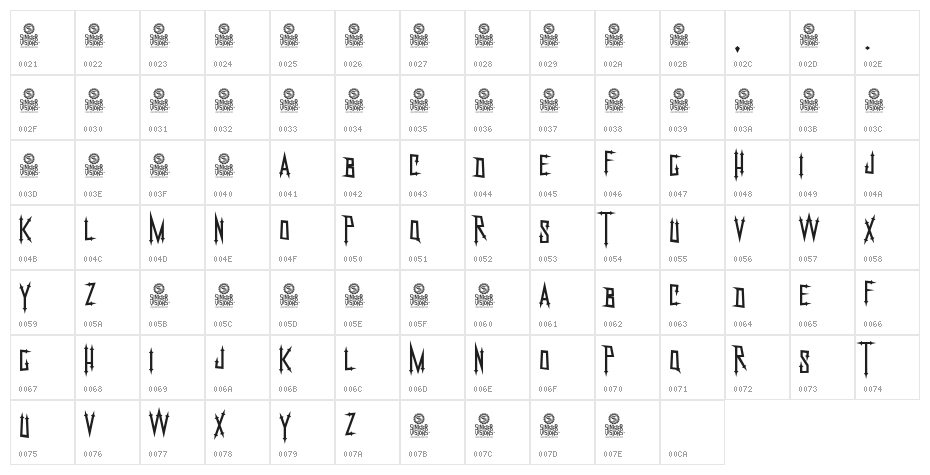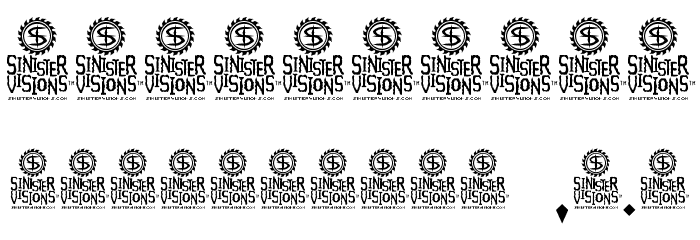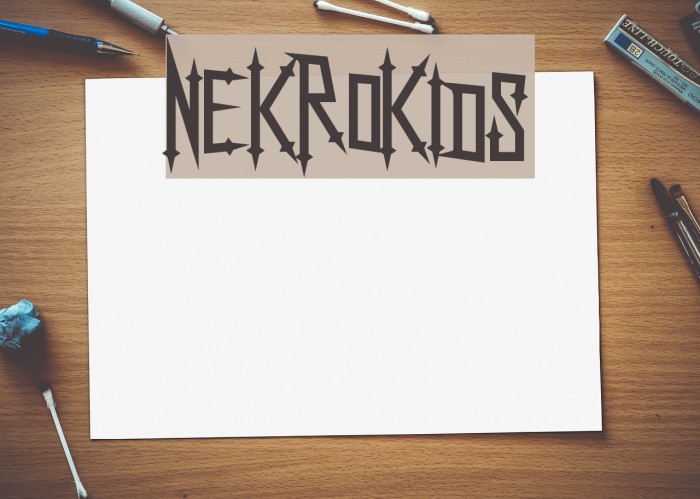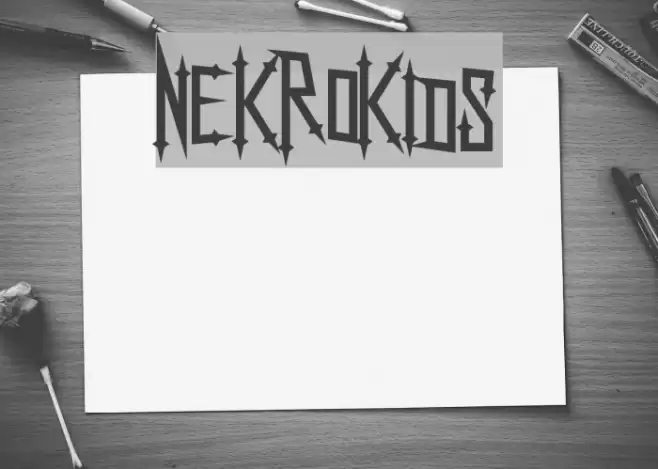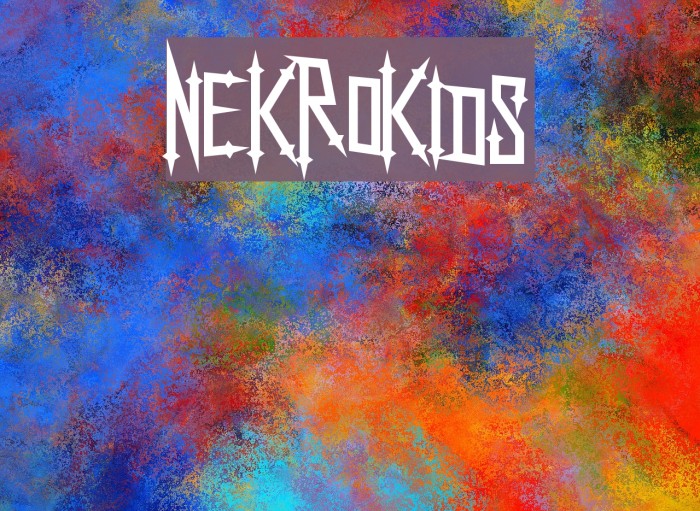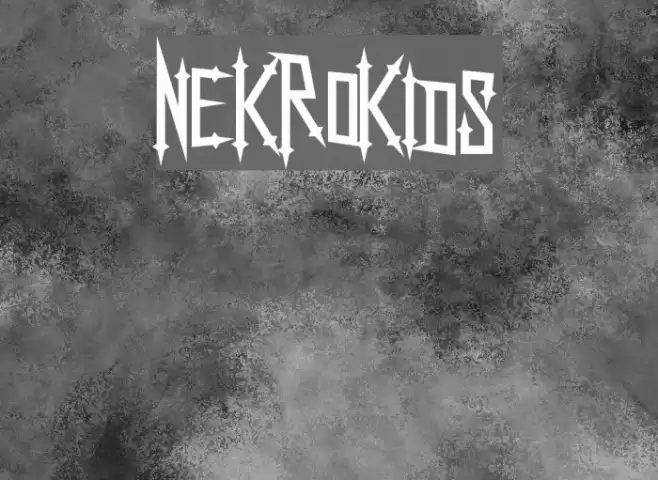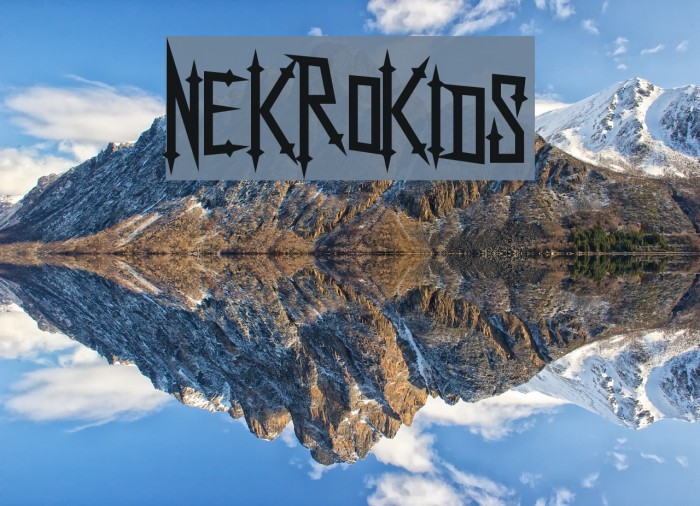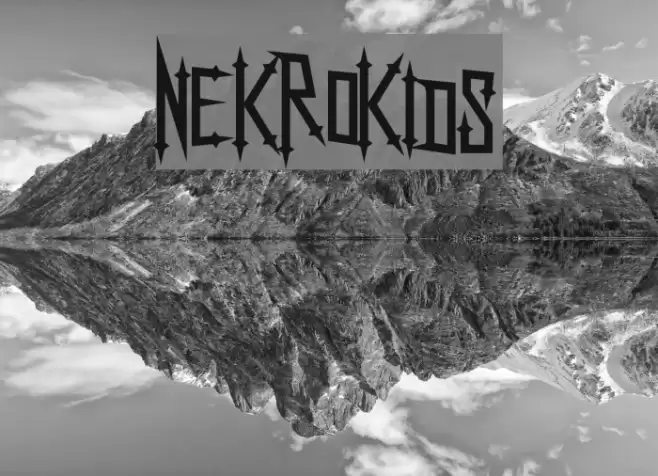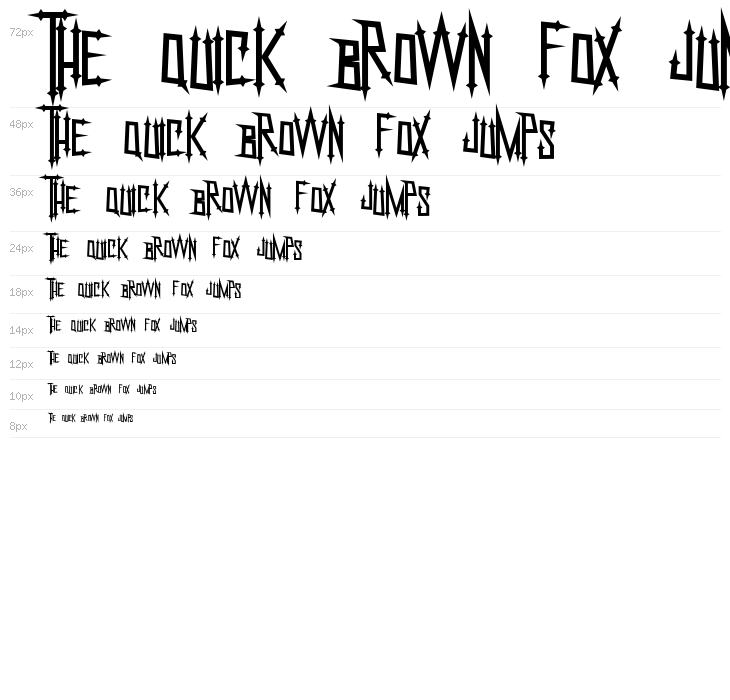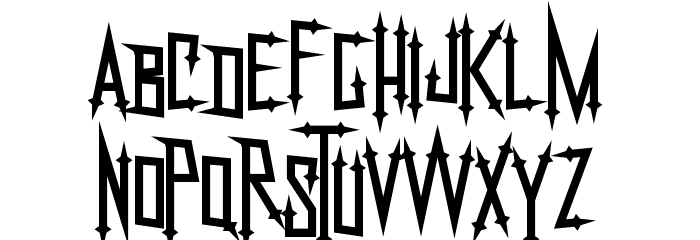
NekroKids Font
| 全体的なスタイル | Gothic, Edgy, Artistic |
| おすすめプロジェクト | Ideal for horror-themed posters, album covers, video game titles, and branding for edgy or alternative products. |